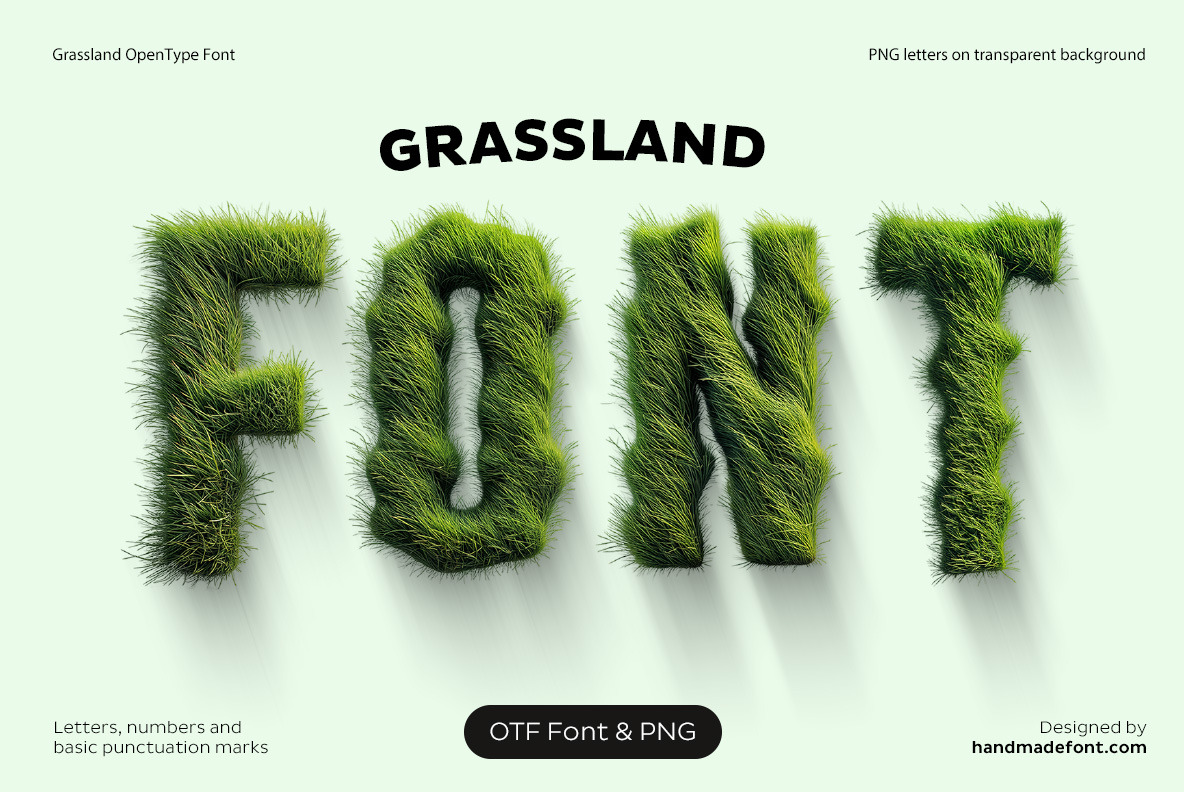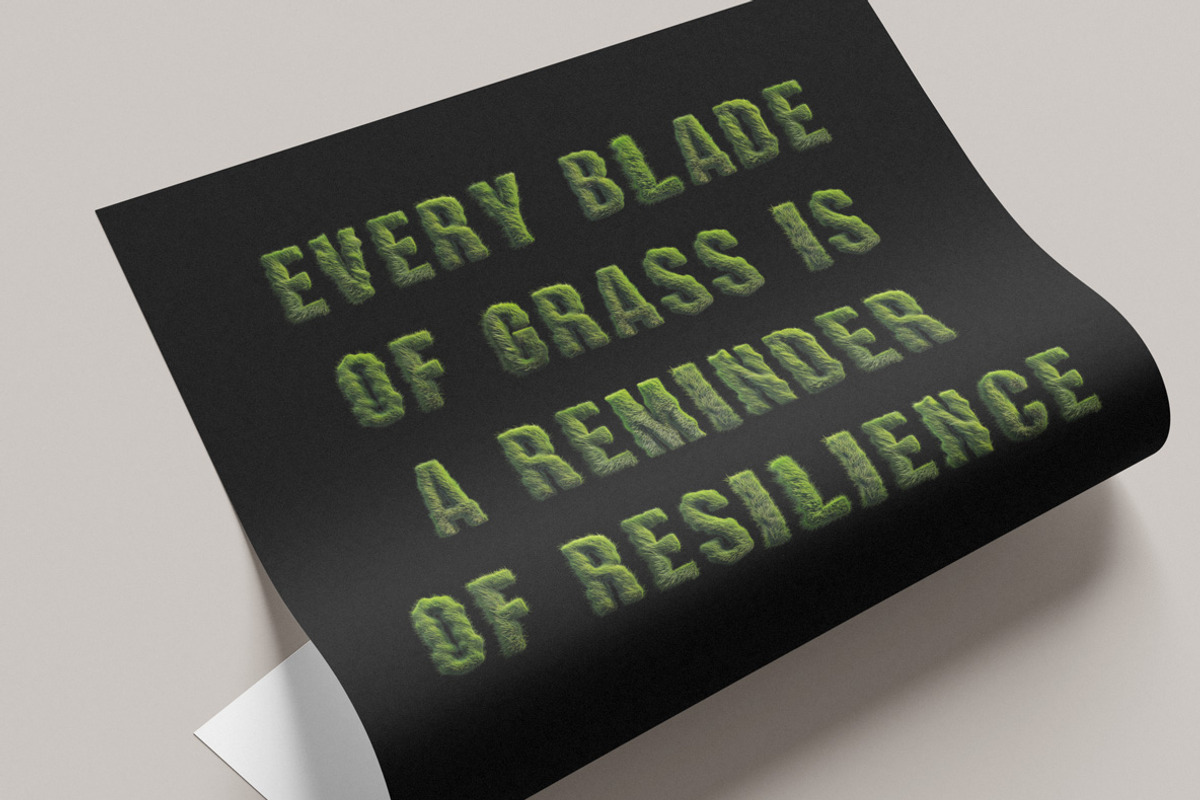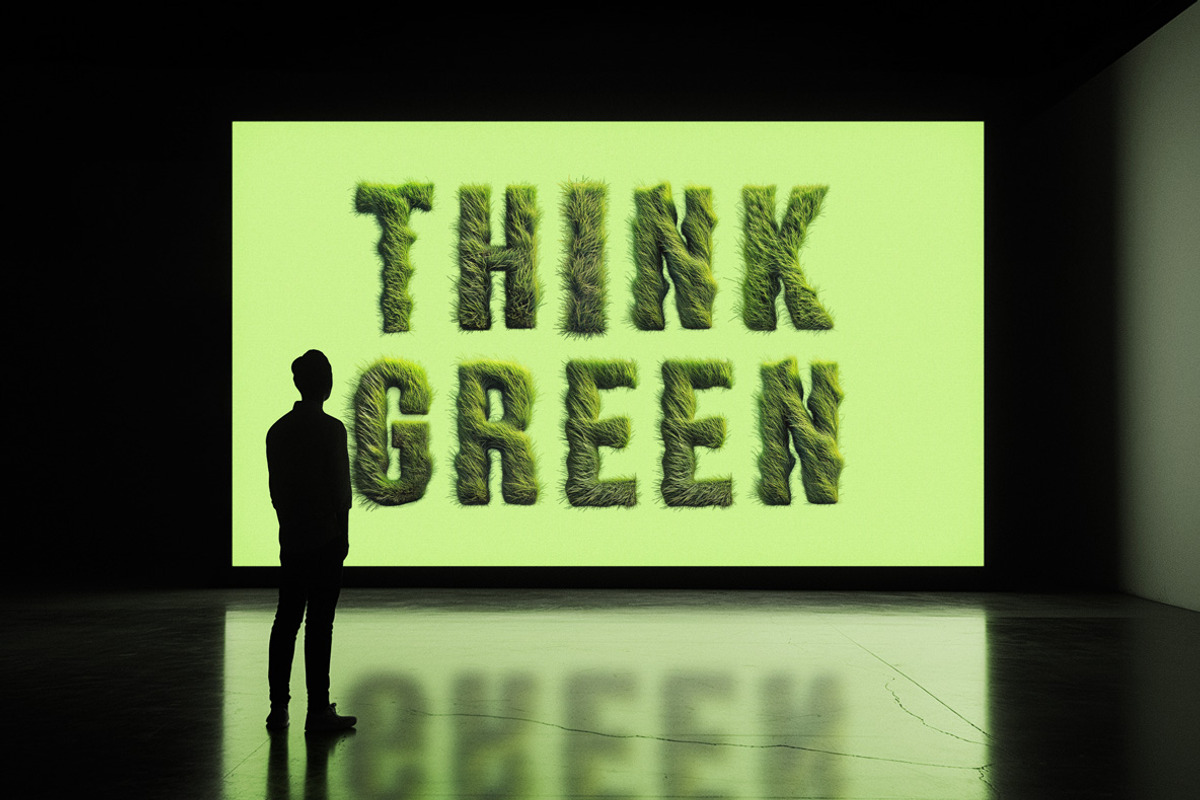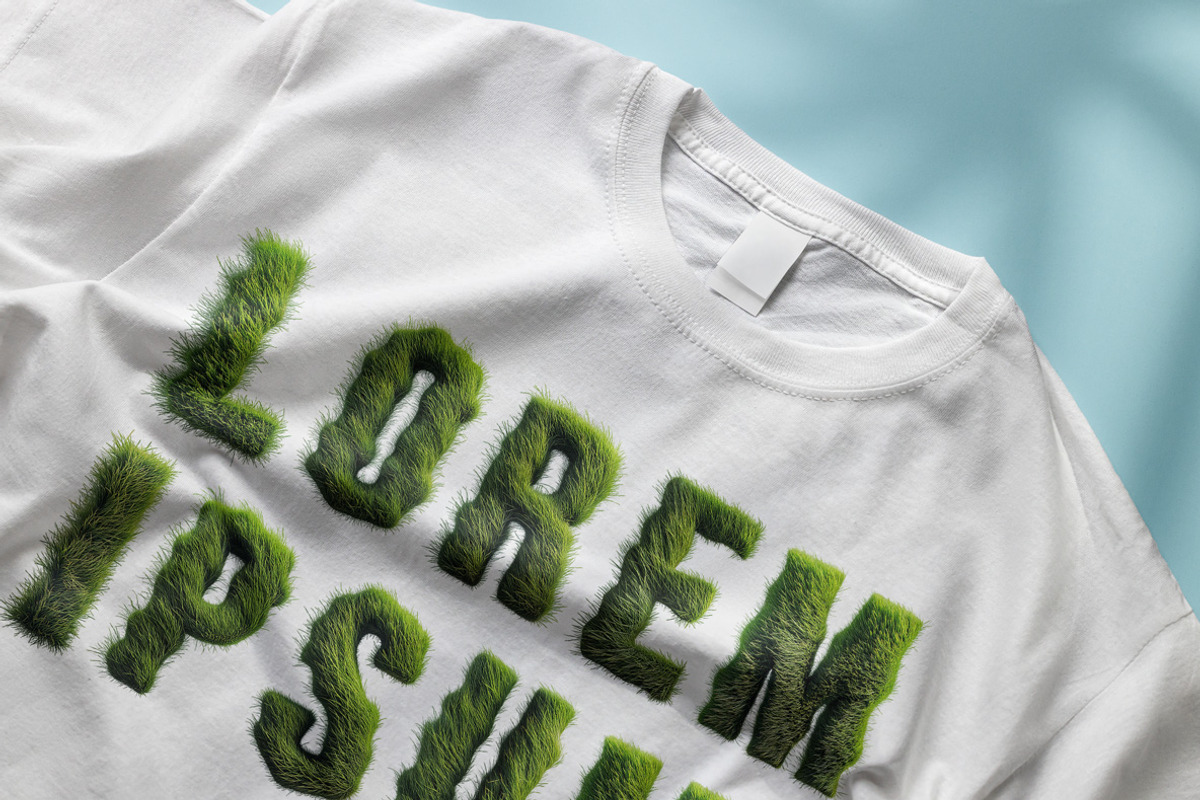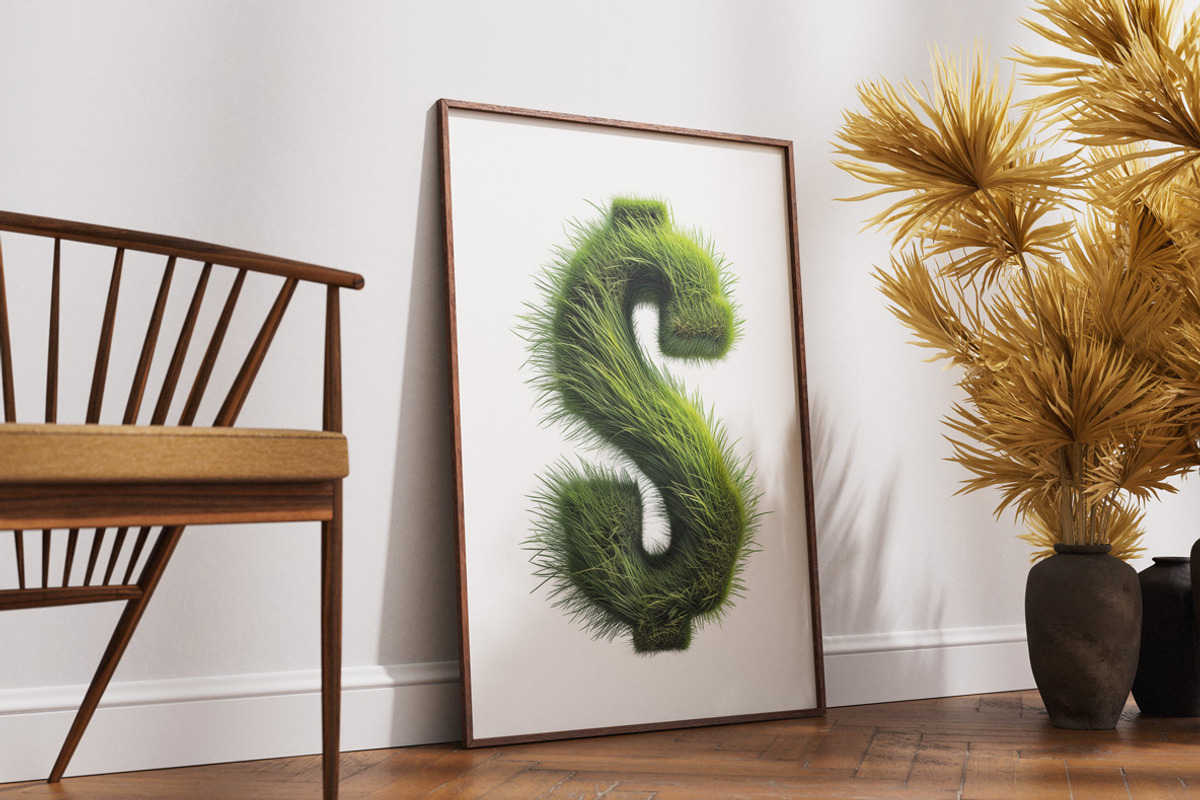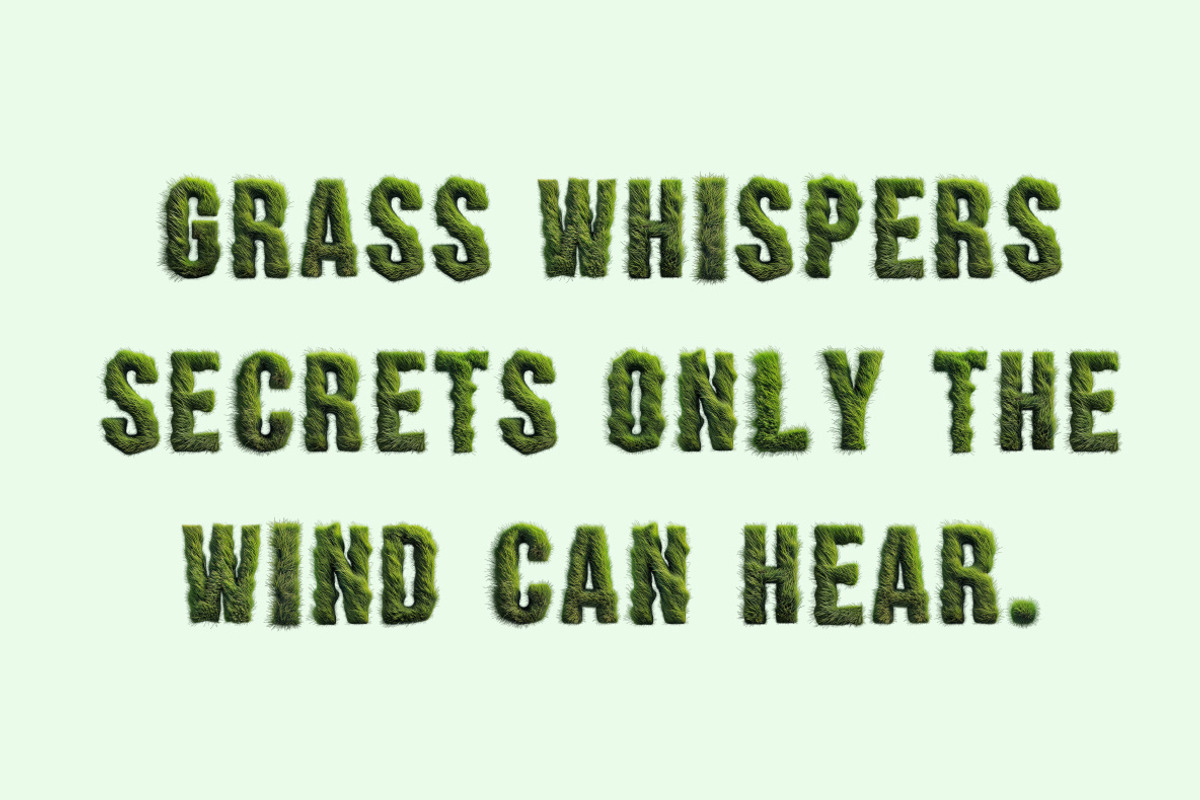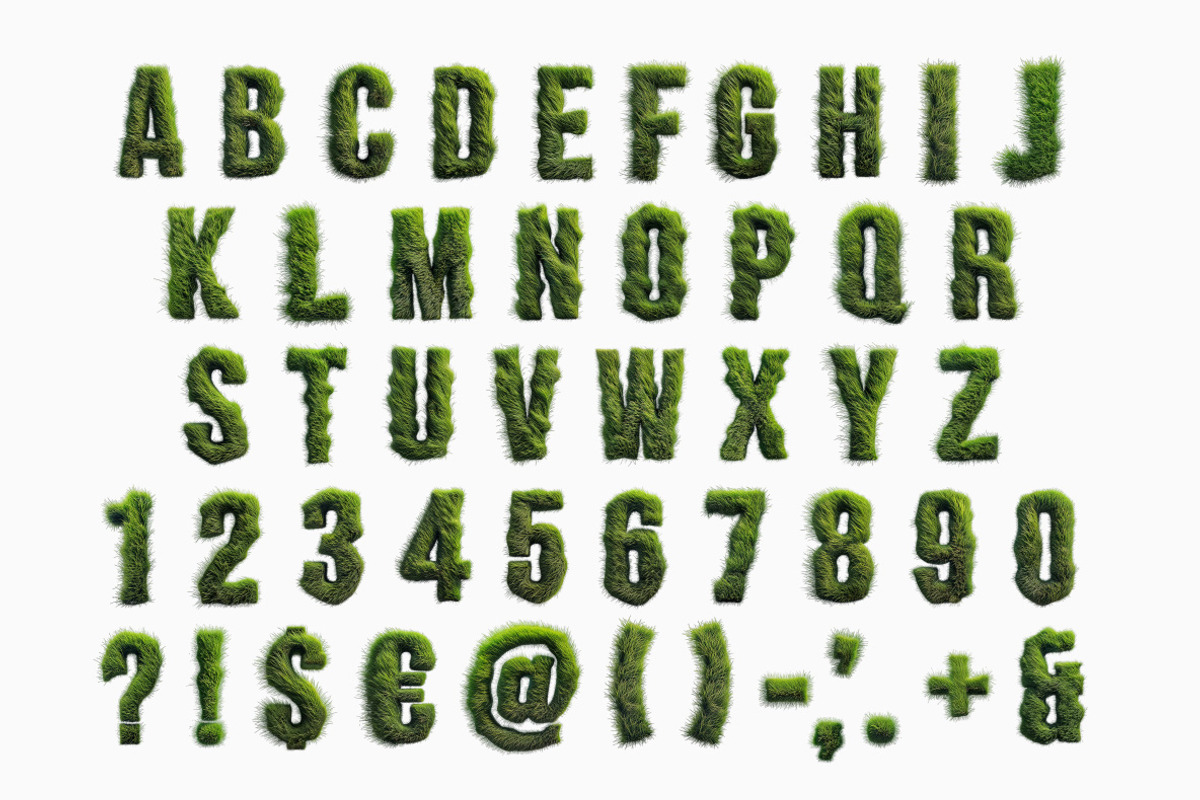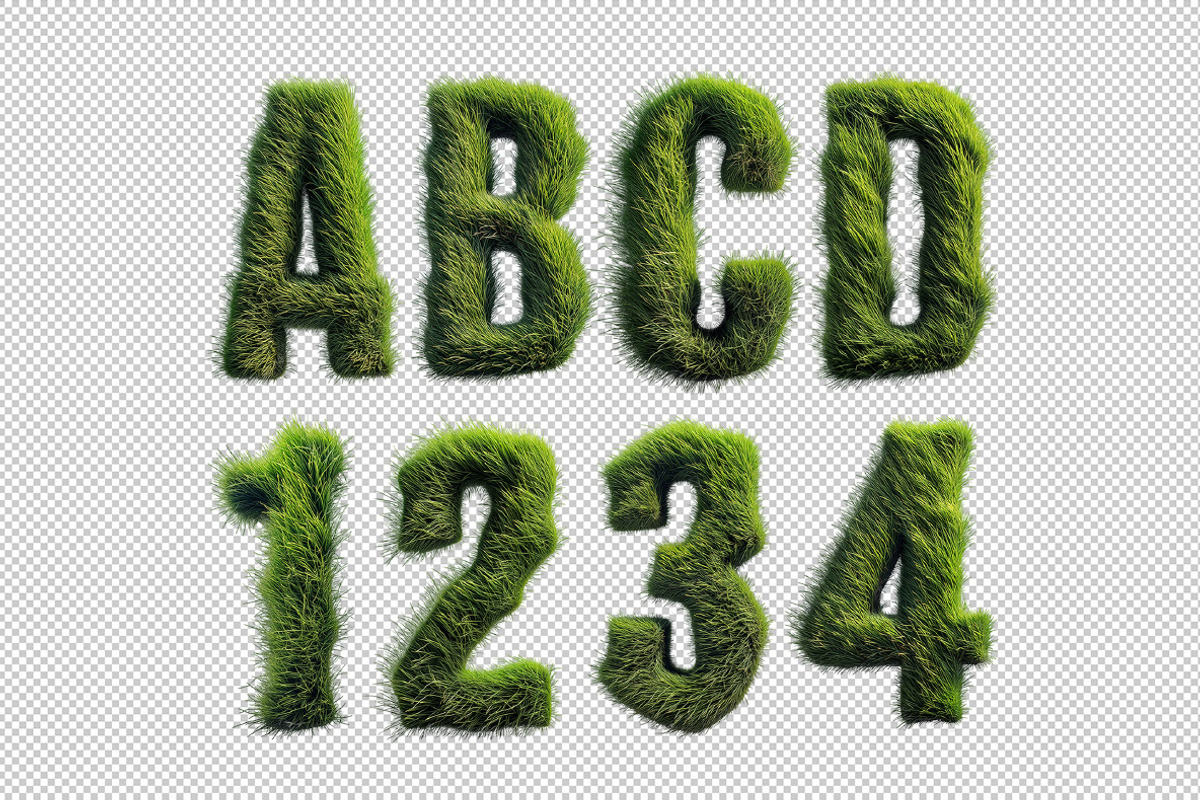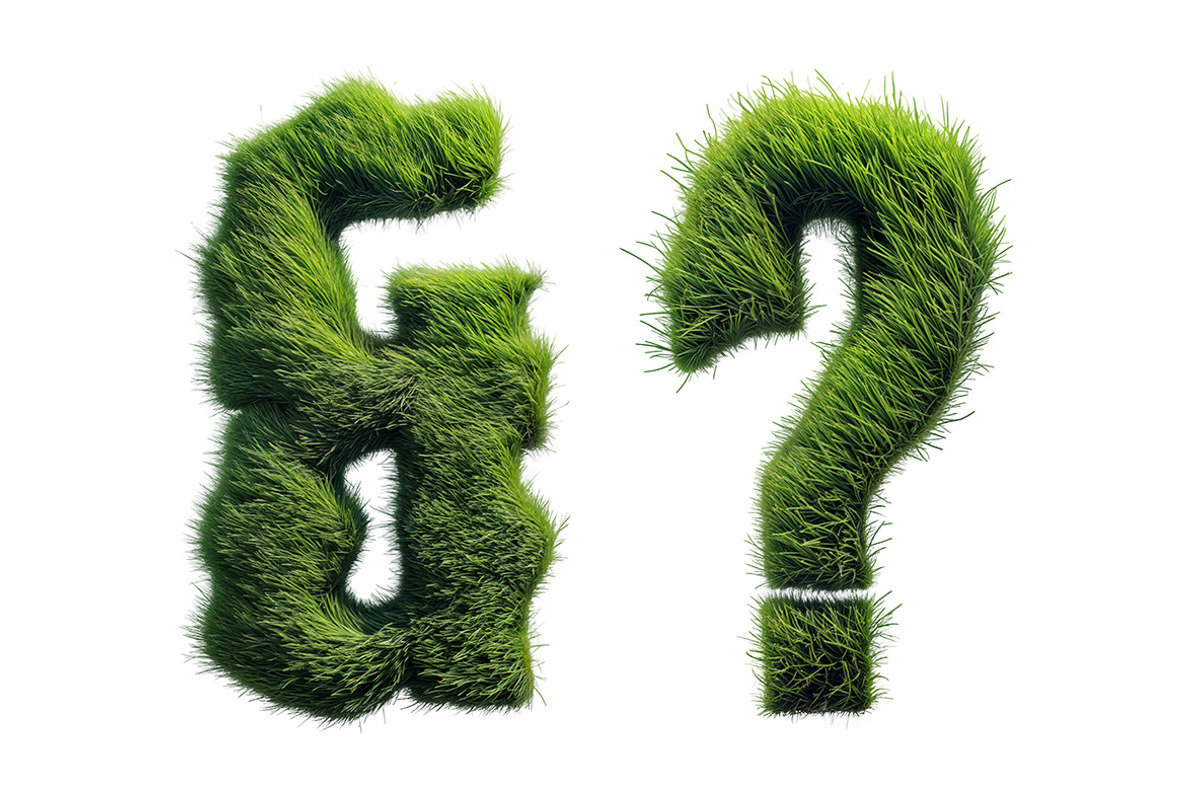
Grassland Font
Life springs to the page with GrasslandFont, a unique typeface where each letter is crafted entirely from lush green grass. The vibrant, detailed texture of the grass creates an organic, earthy feel, evoking the freshness of open meadows. This grass-inspired font brings a sense of nature to your designs, with soft, fluffy, and evenly distributed blades that give each letter a three-dimensional, lifelike quality. Perfect for eco-themed projects, environmental campaigns, or creative designs that celebrate the beauty of nature, GrasslandFont combines artistic elegance with a touch of the wild. Transform your words into a verdant masterpiece with this grass typography, where every curve and corner feels alive with the essence of the natural world.
A high definition OpenType Font. Contains uppercase characters, numerals and basic punctuation. (Draw height roughly 800 pixels). All letters and glyphs that comprises this font you can see on the preview.
- Letters : A B C D E F G H I J K L M N O P Q R S T U V W X Y Z
- Numbers : 0 1 2 3 4 5 6 7 8 9
- Others : ! ? - . ' $ € % & @